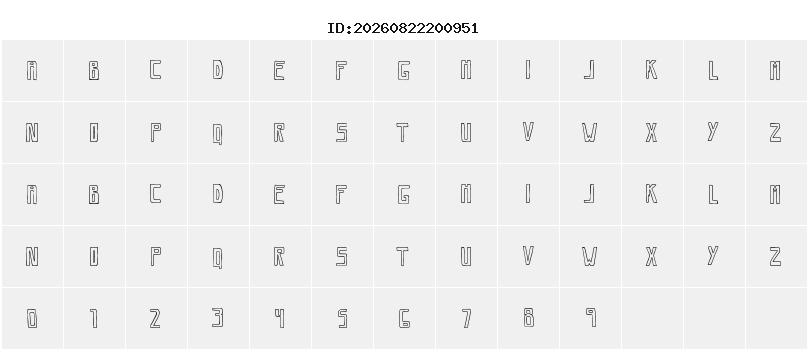
• Font Name: Savia Outline
• Designer: Julia Martinez Diana. ANTIPIXEL
About Savia Outline.ttf
Savia Outline.ttf is a modern, elegant sans-serif font designed for ultimate readability and visual harmony. Perfect for branding, headlines, web design, and print materials.